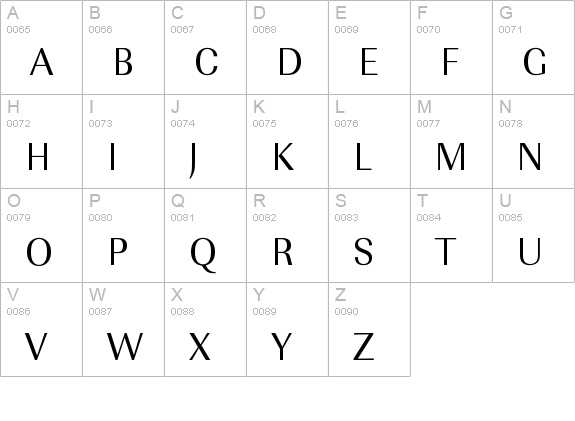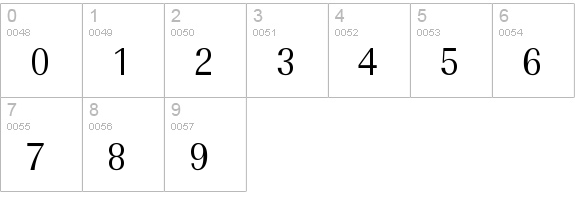
URWImperialTOTNar Font Details
URWImperialTOTNar is a stunning display font that exudes elegance and sophistication. With its intricate details and classic design, this font is perfect for adding a touch of luxury to your projects. Whether you're working on branding, invitations, or editorial designs, URWImperialTOTNar will surely make a statement. What's even better is that URWImperialTOTNar is available for free download at FontsMarket.com. Now you can effortlessly elevate your designs without breaking the bank. Don't miss out on this fabulous font that will surely elevate your projects to the next level. Download URWImperialTOTNar now and let your creativity shine!